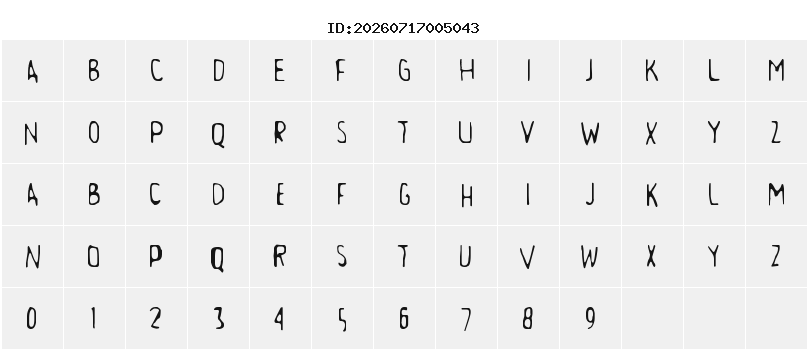
Aamunkoi Preview
• Font Name: Aamunkoi
• Full Font Name: Aamunkoi
• Version: Version 1.00 August 6, 2006, initial release
• Designer: junkohanhero
About Aamunkoi.ttf
Aamunkoi.ttf is a modern, elegant sans-serif font designed for ultimate readability and visual harmony. Perfect for branding, headlines, web design, and print materials.